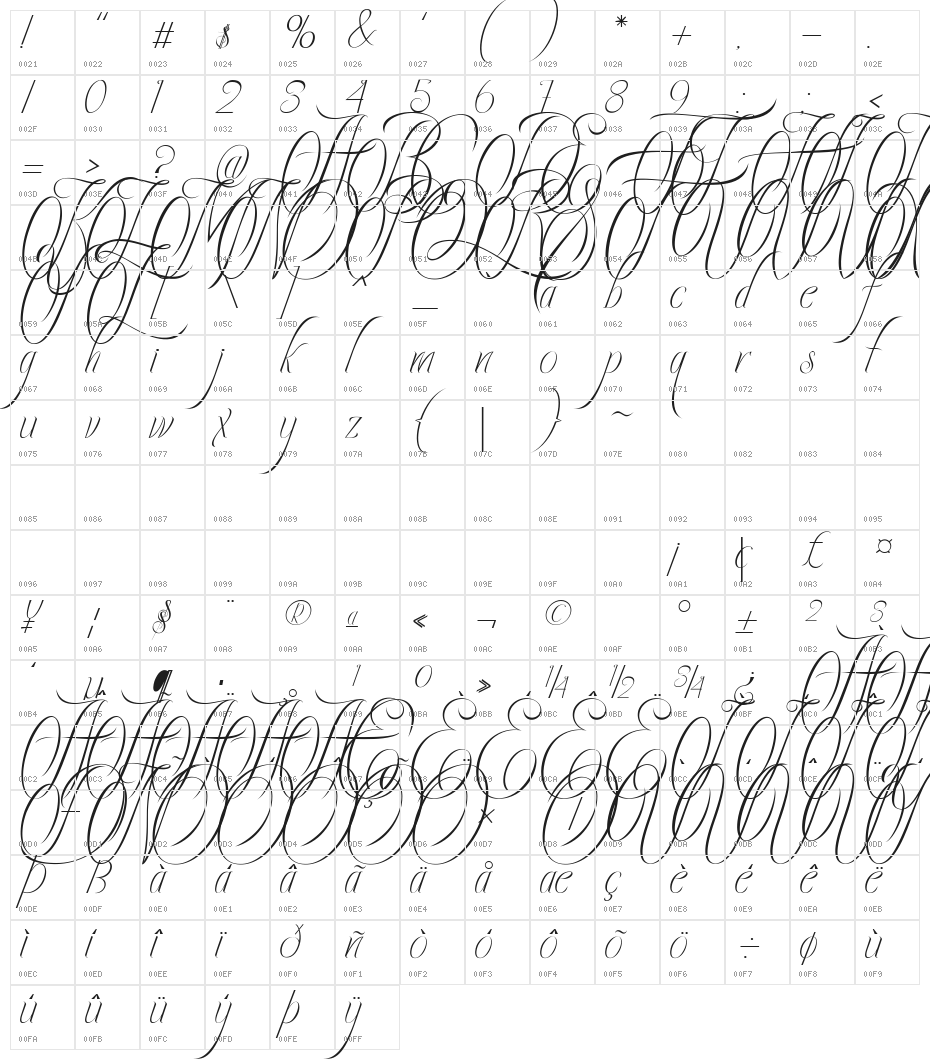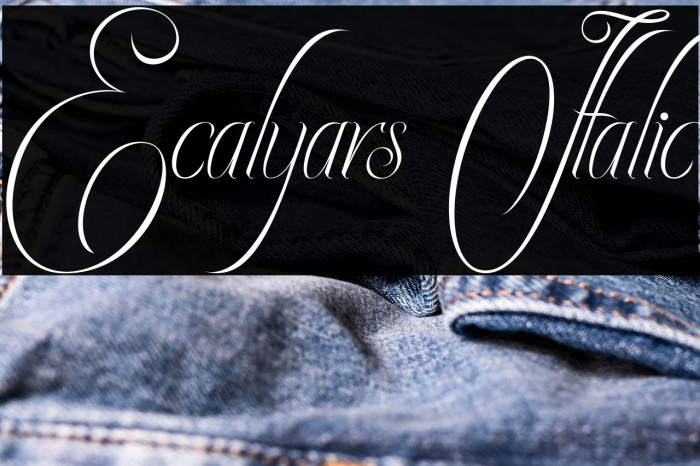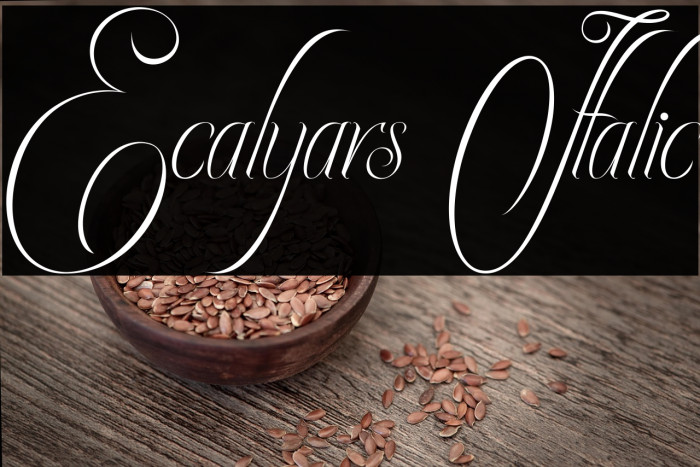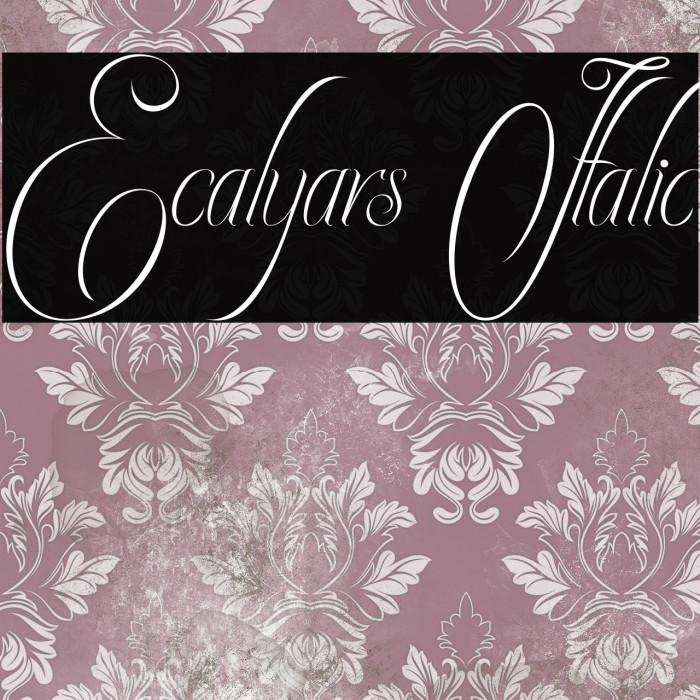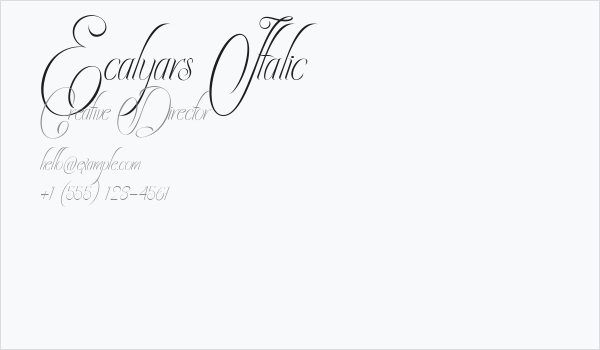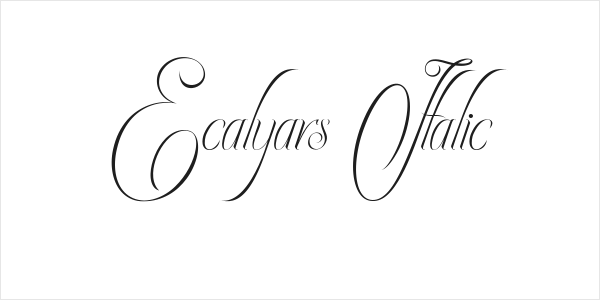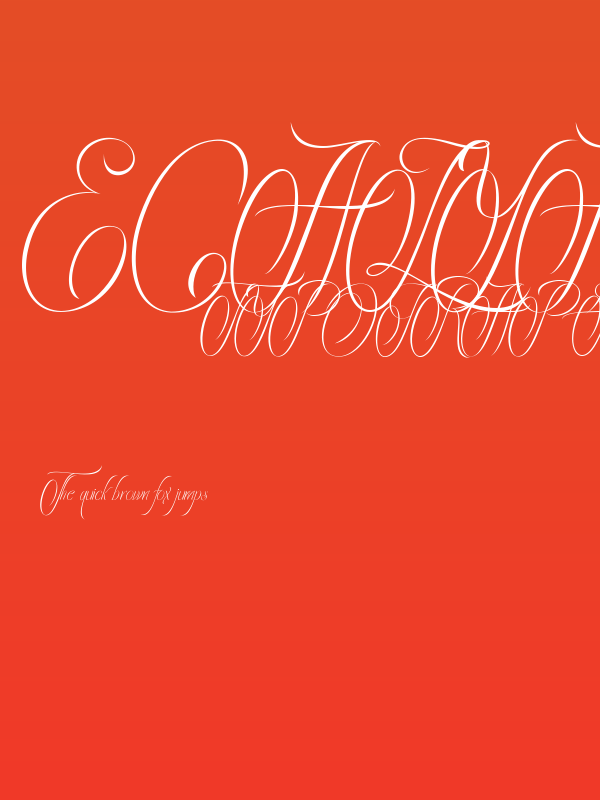
Ecalyars Italic Font
Ecalyars Italic Description
This elegant script font features a flowing, cursive style with high contrast between thick and thin strokes. The characters are elongated and gracefully connected, giving a sense of fluidity and sophistication. The uppercase letters are ornate, with intricate loops and swirls, while the lowercase letters maintain a more streamlined appearance. The numerals and special characters complement the overall aesthetic, maintaining the same elegant curves and delicate lines. This font exudes a sense of luxury and refinement, making it ideal for formal and decorative applications.
| Use Case | Headlines, Invitations, Branding |
| Proposed Projects | Ideal for wedding invitations, luxury branding, elegant packaging, and decorative headlines. |